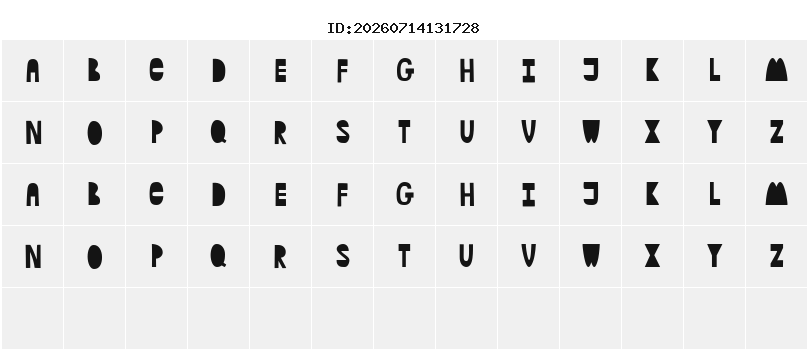
• Font Name: HardQuestions
• Font ID: JoshuaThompson: Hard Questions: 2010
• Full Font Name: HardQuestions
• Version: Version 1.005 2010
• PostScript Name: HardQuestions
• Character Count: 59
• Designer: Joshua Thompson
• Manufacturer: Joshua Thompson
About HardQuestions.ttf
HardQuestions.ttf is a modern, elegant sans-serif font designed for ultimate readability and visual harmony. Perfect for branding, headlines, web design, and print materials.